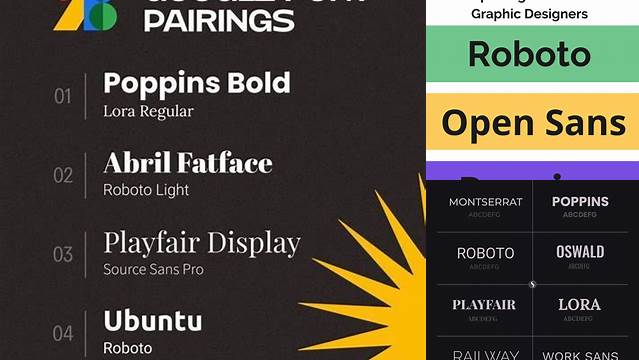
Top Google Fonts: Boost Your Design!
Choosing the right font can make or break your design, guys! And with so many options out there, especially on Google Fonts, it can feel a bit overwhelming. But don't worry, we're here to help you navigate the world of typography and find the perfect font to elevate your projects. Let's dive into the most popular Google Fonts and how to use them effectively!
1. Roboto: The Versatile Workhorse
Roboto is a classic for a reason! This font is incredibly versatile, making it a fantastic choice for just about anything. Think websites, apps, documents – you name it! Its clean lines and geometric shapes give it a modern, professional feel, but it's still super readable. That's key, right? No one wants to squint to read your text. The reason why it is popular is that Roboto offers a wide range of weights and styles, so you can easily create a visual hierarchy in your designs. Use it for headlines, body text, captions – the possibilities are endless! Seriously, if you're unsure where to start, Roboto is a safe bet. But don’t just take our word for it; the widespread adoption of Roboto speaks volumes about its usefulness and appeal. It's a font that works hard and looks good doing it, making it a staple in many designers' toolkits. The subtle curves and open forms ensure readability even at smaller sizes, which is crucial for a good user experience. It's not just a font; it's a design solution.
2. Open Sans: Clean and Friendly
Open Sans is another popular Google Font that's known for its clean and friendly appearance. It's highly legible and works well in a variety of contexts. This font was designed with readability in mind, featuring open forms and a neutral yet approachable aesthetic. This makes it an excellent choice for websites, user interfaces, and even printed materials. Open Sans offers a modern, minimalist feel without being overly sterile or cold. Think of it as the friendly neighbor of fonts – always reliable and easy to get along with. Using Open Sans in your designs can give your content a sense of clarity and openness. It’s particularly effective in situations where you need to convey information clearly and efficiently, like in instructional materials or user manuals. The font’s versatility extends to different media as well; it looks just as good on a computer screen as it does in a printed brochure. Its adaptability is a major reason why so many designers reach for Open Sans as a go-to solution for their projects.
3. Lato: Modern and Stylish
If you're looking for something a bit more modern and stylish, Lato is a fantastic option. This popular Google Font has a semi-rounded design that gives it a warm, approachable feel while still maintaining a professional look. Lato is a sans-serif typeface that blends modern aesthetics with a touch of classic elegance. It's neither too formal nor too casual, making it versatile enough for a broad range of applications. Its letterforms are designed with balance in mind, ensuring both readability and visual appeal. Lato’s sleek appearance makes it an excellent choice for websites, branding materials, and even longer blocks of text. The subtle details in its design give it character without being distracting. Using Lato can bring a touch of sophistication to your project, helping it stand out while maintaining clarity and ease of reading. Whether you’re designing a corporate website or a creative portfolio, Lato can help you strike the right tone. It’s a font that communicates competence and style, a winning combination in any design.
4. Montserrat: Geometric and Bold
Montserrat is a geometric sans-serif font that's perfect for headlines and titles. Its bold, modern look will definitely grab attention. This popular Google Font draws inspiration from the urban typography of Buenos Aires, offering a distinct and stylish feel. Montserrat’s strong character makes it particularly effective for branding and display purposes, such as logos, headings, and posters. Its letterforms are crafted with precision, giving it a clean and impactful presence. The font’s contemporary vibe makes it an excellent choice for projects that aim to convey a sense of innovation and modernity. Using Montserrat can instantly elevate your design, adding a touch of sophistication and visual interest. Whether you’re working on a website, a marketing campaign, or a print project, Montserrat can help you create a bold statement. Its ability to command attention while maintaining readability is a key factor in its widespread popularity among designers.
5. Raleway: Elegant and Refined
Raleway is an elegant sans-serif font that's known for its refined style. It's perfect for creating a sophisticated look and feel. This popular Google Font stands out with its distinctive letterforms and a touch of modern flair. Raleway's delicate strokes and sharp angles give it a unique personality, making it an excellent choice for projects that require a touch of sophistication. It's particularly effective in branding, headlines, and elegant designs. Raleway’s versatility also extends to body text, though it shines brightest when used in larger sizes. Using Raleway can bring a sense of class and refinement to your design, helping you create a polished and professional aesthetic. Whether you’re designing a high-end website or a stylish print piece, Raleway can help you make a lasting impression. Its elegant appearance combined with its readability ensures that your message is conveyed with both style and clarity.
6. Playfair Display: A Touch of Classic Charm
For a touch of classic charm, Playfair Display is an excellent choice. This serif font has a timeless elegance that's perfect for headings and titles, bringing a touch of sophistication to any project. This popular Google Font is particularly well-suited for designs that aim to evoke a sense of tradition and quality. Its high contrast and delicate serifs give it a distinctive and refined appearance. Playfair Display is often used in editorial design, branding, and projects that require a touch of classic beauty. Its elegant letterforms make it an excellent choice for headlines, logos, and display text. Using Playfair Display can instantly elevate your design, adding a touch of sophistication and visual interest. Whether you’re working on a magazine layout or a wedding invitation, Playfair Display can help you create a memorable and impactful design.
7. Lora: Readable and Stylish Serif
Lora is a well-balanced serif font that's both readable and stylish. It's great for body text and longer paragraphs, making it a versatile choice for websites and blogs. This popular Google Font has a contemporary feel with roots in calligraphy, giving it a distinctive yet approachable appearance. Lora’s letterforms are designed to be easily read, making it an excellent choice for extended reading experiences. It's particularly well-suited for body text in digital and print formats. Lora’s balanced design ensures that it looks good in both large and small sizes, making it a versatile choice for a wide range of projects. Using Lora can bring a sense of elegance and clarity to your text, enhancing the overall readability and aesthetic appeal of your design. Whether you’re working on a blog, a website, or a book, Lora can help you create a polished and engaging reading experience.
8. Oswald: Condensed and Modern
Oswald is a condensed sans-serif font that's perfect for headlines and titles where space is limited. Its modern, bold design makes it a great choice for websites and posters. This popular Google Font has a strong presence that commands attention, making it ideal for projects that need to make a statement. Oswald’s tight letterforms and bold strokes give it a distinct and contemporary look. It's particularly effective in headlines, banners, and other display applications. Oswald’s condensed design allows it to fit more text into a smaller space without sacrificing readability. Using Oswald can bring a sense of modernity and energy to your design, helping you create a dynamic and visually appealing layout. Whether you’re working on a website header or a promotional poster, Oswald can help you capture attention and convey your message effectively.
9. Merriweather: A Serif Built for Screens
Merriweather is a serif font that was specifically designed for readability on screens. It's an excellent choice for body text on websites and blogs. This popular Google Font has a classic yet contemporary feel, making it a versatile choice for a wide range of applications. Merriweather’s robust letterforms and balanced proportions ensure that it’s easy to read, even in long paragraphs. It’s particularly well-suited for online publications, articles, and websites with a lot of text. Merriweather’s design takes into account the challenges of screen readability, making it a reliable choice for digital content. Using Merriweather can enhance the reading experience, providing clarity and comfort for your audience. Whether you’re working on a blog, an online magazine, or a corporate website, Merriweather can help you create a professional and engaging reading environment.
10. Slabo 27px: Perfect for Online Body Text
Slabo 27px is specifically designed for body text at 27 pixels, making it ideal for online articles and blog posts. Its clear and legible design ensures a comfortable reading experience. This popular Google Font is part of a family of fonts optimized for specific sizes, with Slabo 27px tailored for optimal readability in body text. Its clean and sturdy letterforms make it an excellent choice for websites, blogs, and online publications. Slabo 27px’s design focuses on enhancing the reading experience, ensuring that text is easy on the eyes even for extended periods. Using Slabo 27px can improve the overall usability of your website, making it more enjoyable for your visitors to read your content. Whether you’re working on a news site or a personal blog, Slabo 27px can help you create a polished and accessible online presence.
11. Choosing the Right Font Pairings
Font pairings can make or break a design. It's important to choose fonts that complement each other. Think about contrasting a bold headline font with a readable body text font. For example, pairing Montserrat with Open Sans can create a modern and balanced look. This consideration of popular Google Font combinations is key to creating visually appealing and effective designs. Think about the personality you want to convey with your project; certain fonts work better together than others. A classic combination is using a serif font for headings and a sans-serif font for body text, which can enhance readability and create visual hierarchy. Remember, the goal is to create harmony and balance in your typography.
12. Using Google Fonts for Headlines
For headlines, you want something that grabs attention! Bold and striking fonts like Montserrat or Oswald are great choices. These fonts have a strong visual presence that will help your headlines stand out. Considering the popular Google Fonts for headlines, it’s essential to choose something that matches the tone and style of your content. A bold headline can draw the reader in, setting the stage for what's to follow. Experiment with different font weights and sizes to find the perfect balance between impact and readability. Remember, headlines are your opportunity to make a strong first impression.
13. Best Google Fonts for Body Text
Readability is key for body text. Open Sans, Roboto, and Lora are excellent choices because they're easy on the eyes, even for long paragraphs. These popular Google Fonts are designed with readability in mind, ensuring that your audience can comfortably read your content. A well-chosen body text font enhances the overall user experience, making it more enjoyable for visitors to engage with your website or blog. Focus on fonts that have clear letterforms and balanced proportions to avoid eye strain. The goal is to present your content in a way that’s both visually appealing and easily digestible.
14. How to Embed Google Fonts on Your Website
Embedding Google Fonts on your website is super easy! You can either use the provided code snippet in the <head> section of your HTML or use a plugin if you're on WordPress. This process of incorporating popular Google Fonts into your site is crucial for maintaining a consistent brand identity and improving the overall design. Make sure to choose the font weights and styles that you need to optimize page load times. Overloading your website with unnecessary fonts can slow it down, affecting user experience. So, select your fonts wisely and embed them efficiently to keep your site running smoothly.
15. Google Fonts for a Modern Design
For a modern design, consider using sans-serif fonts like Lato or Raleway. These fonts have a clean, contemporary look that will give your project a fresh and stylish feel. When aiming for a modern aesthetic, these popular Google Fonts offer the perfect blend of simplicity and sophistication. They can create a sleek and professional vibe, making them ideal for tech startups, design agencies, and forward-thinking businesses. Using these fonts in your design can convey a sense of innovation and creativity, helping you to attract a contemporary audience.
16. Google Fonts for a Classic Look
If you're aiming for a classic look, serif fonts like Playfair Display or Merriweather are excellent choices. They bring a touch of elegance and tradition to your design. These popular Google Fonts evoke a sense of timelessness and refinement, making them suitable for brands and projects that want to communicate trust and heritage. A classic font can add a touch of sophistication to your website or print materials, helping you to stand out in a world of overly modern designs.
17. Best Free Google Fonts for 2024
Staying up-to-date with the latest font trends? Roboto, Open Sans, and Lato are still top choices, but keep an eye out for new and emerging fonts on Google Fonts. The world of popular Google Fonts is constantly evolving, so it’s always a good idea to explore new options. Designers are continuously creating fresh and innovative typefaces, and Google Fonts is a great place to discover them. By staying current with font trends, you can ensure that your designs look modern and relevant. Keep an open mind and experiment with different fonts to find the perfect fit for your projects.
18. Using Google Fonts in Logos
A well-chosen font can make your logo memorable! Montserrat and Raleway are popular options for logos because they're clean and versatile. When it comes to selecting popular Google Fonts for your logo, consider the overall message and brand identity you want to convey. Your logo is the face of your brand, so the font you choose should be a reflection of your values and personality. A strong, legible font can help your logo stand out and leave a lasting impression on your audience.
19. Google Fonts and SEO: Does Font Choice Matter?
While font choice doesn't directly impact SEO, readability does! Using easy-to-read fonts can improve user experience, which can indirectly boost your SEO rankings. Therefore, selecting popular Google Fonts that are legible and visually appealing is crucial for keeping visitors engaged on your site. A positive user experience, including readable text, can lead to longer session times and lower bounce rates, which are factors that search engines consider when ranking websites. So, choose fonts that not only look good but also provide a comfortable reading experience for your audience.
20. Understanding Font Licensing for Google Fonts
Google Fonts are generally open-source, meaning you can use them for personal and commercial projects without worry. However, it's always a good idea to double-check the specific license for each font. Knowing the licensing terms of popular Google Fonts ensures that you’re using them legally and ethically in your projects. Most Google Fonts are released under the SIL Open Font License, which grants you broad permissions to use, modify, and distribute the fonts. However, it’s always wise to confirm the license details to avoid any potential issues.
21. The Impact of Typography on User Experience
Typography plays a huge role in user experience. Readable fonts and a clear visual hierarchy make it easier for users to navigate your website or app. The strategic use of popular Google Fonts can significantly enhance the way users interact with your content. Well-chosen fonts improve readability, create visual interest, and guide users through the information. Typography is an essential element of design that should never be overlooked, as it directly impacts how your message is perceived and understood.
22. Google Fonts for E-commerce Websites
For e-commerce sites, choose fonts that convey trust and professionalism. Open Sans and Roboto are safe bets because they're clean and easy to read, and a lot of the popular Google Fonts are. Think about how your font choices influence customer perception. You want to create an environment where customers feel confident making purchases. Readable product descriptions, clear call-to-action buttons, and consistent typography throughout your site can build trust and improve conversion rates.
23. Font Weights and Styles: Making the Most of Google Fonts
Don't just stick to the default font weight! Experiment with different weights and styles (bold, italic, etc.) to create visual interest and hierarchy. Exploring the different weights and styles within popular Google Fonts allows you to add depth and dimension to your designs. Using a variety of font weights can help you emphasize important information, create a visual hierarchy, and guide the reader's eye through the content. It’s a simple yet effective way to elevate your typography and make your design more engaging.
24. Google Fonts for Print Design
While many Google Fonts are optimized for screens, some work great in print too! Lora and Merriweather are good options for printed materials. The versatility of popular Google Fonts extends beyond the digital realm. When selecting fonts for print projects, consider how they will look on paper and choose those that retain their clarity and readability in printed form. Test your font choices in different sizes and layouts to ensure they work well in your printed designs.
25. Combining Serif and Sans-Serif Fonts
One classic technique is to pair a serif font (like Merriweather) with a sans-serif font (like Open Sans). This creates a nice contrast and visual balance. Mastering the art of combining different fonts within popular Google Fonts can greatly enhance the overall aesthetic of your design. Serif fonts often convey a sense of tradition and formality, while sans-serif fonts tend to feel more modern and clean. By thoughtfully pairing these font styles, you can create a visual harmony that's both engaging and professional.
26. Google Fonts for Blogs and Online Publications
Readability is crucial for blogs! Choose fonts that are easy on the eyes for long-form content, such as Lora or Merriweather, or even some of the other popular Google Fonts. Your goal is to create a comfortable reading experience for your audience, encouraging them to spend more time engaging with your content. Readable fonts make it easier for visitors to digest information, reducing eye strain and improving overall user satisfaction. Choose fonts that are clear, well-spaced, and optimized for screen reading.
27. Mobile-Friendly Google Fonts
Make sure your font choices look good on mobile devices! Test your website on different screen sizes to ensure readability, making sure that the popular Google Fonts you have chosen are responsive. With the majority of web traffic coming from mobile devices, it’s essential to choose fonts that display well on smaller screens. Consider factors such as font size, line height, and letter spacing to optimize readability on mobile devices. A responsive design that adapts to different screen sizes ensures that your content looks great no matter how your audience is viewing it.
28. Avoiding Common Typography Mistakes with Google Fonts
One common mistake is using too many fonts! Stick to a maximum of 2-3 fonts to keep your design clean and consistent with the popular Google Fonts. Overusing fonts can create a cluttered and confusing visual experience, detracting from your message. It’s better to choose a few high-quality fonts and use them effectively throughout your design. Consistency in typography helps to create a cohesive and professional look, making your design more impactful.
29. The Future of Google Fonts and Typography Trends
Typography is constantly evolving! Keep an eye on emerging trends and new font releases to stay ahead of the curve in terms of popular Google Fonts to use. The world of typography is dynamic, with new fonts and styles constantly being developed. Staying informed about the latest trends can help you create designs that feel fresh and innovative. Embrace experimentation and be open to trying new fonts to find unique and effective ways to communicate your message.
30. Where to Find Inspiration for Google Font Combinations
Need some inspiration? Check out websites like FontPair or Typewolf for examples of successful font combinations. These resources can provide valuable insights into how different popular Google Fonts work together, giving you a starting point for your own projects. Exploring existing font combinations can help you develop a better understanding of typography principles and spark your creativity. Don't be afraid to try out different pairings and experiment until you find the perfect combination for your design.